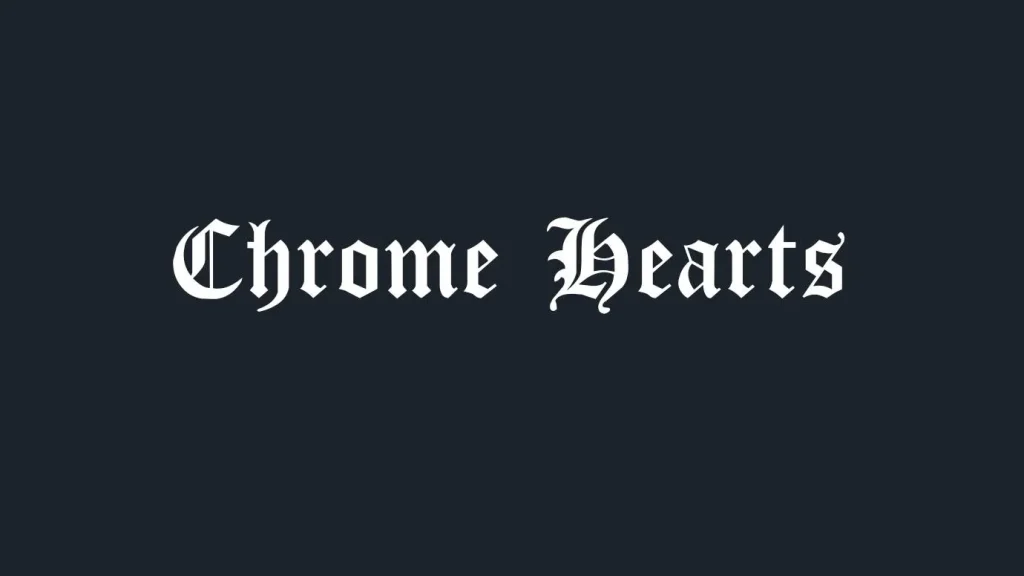
Despite its inflexible strokes and powerful series, is a strong character. When enlarged, it is beautiful and easy to read. There are plenty of patterns in
Chrome Hearts Font can be a tremendous choice for any venture that needs a feel of elegance. You'll produce this typeface from the online textual style generator tool. Many designers have been utilizing this typeface for their various design projects.
Despite its inflexible strokes and powerful series, is a strong character. When enlarged, it is beautiful and easy to read. There are plenty of patterns in smaller sizes. The typeface is ideal for branding, books, and posters that need a sharp, elegant tone.
Also, you can use this typeface style design when creating labels, watermarks, and modern commercials. This typeface is popular among designers because of its realistic appearance. You can also pair it with geniusly font that enhances the beauty of the project.
Dieter Steffmann designed this nice and amazing text style to create unique content.